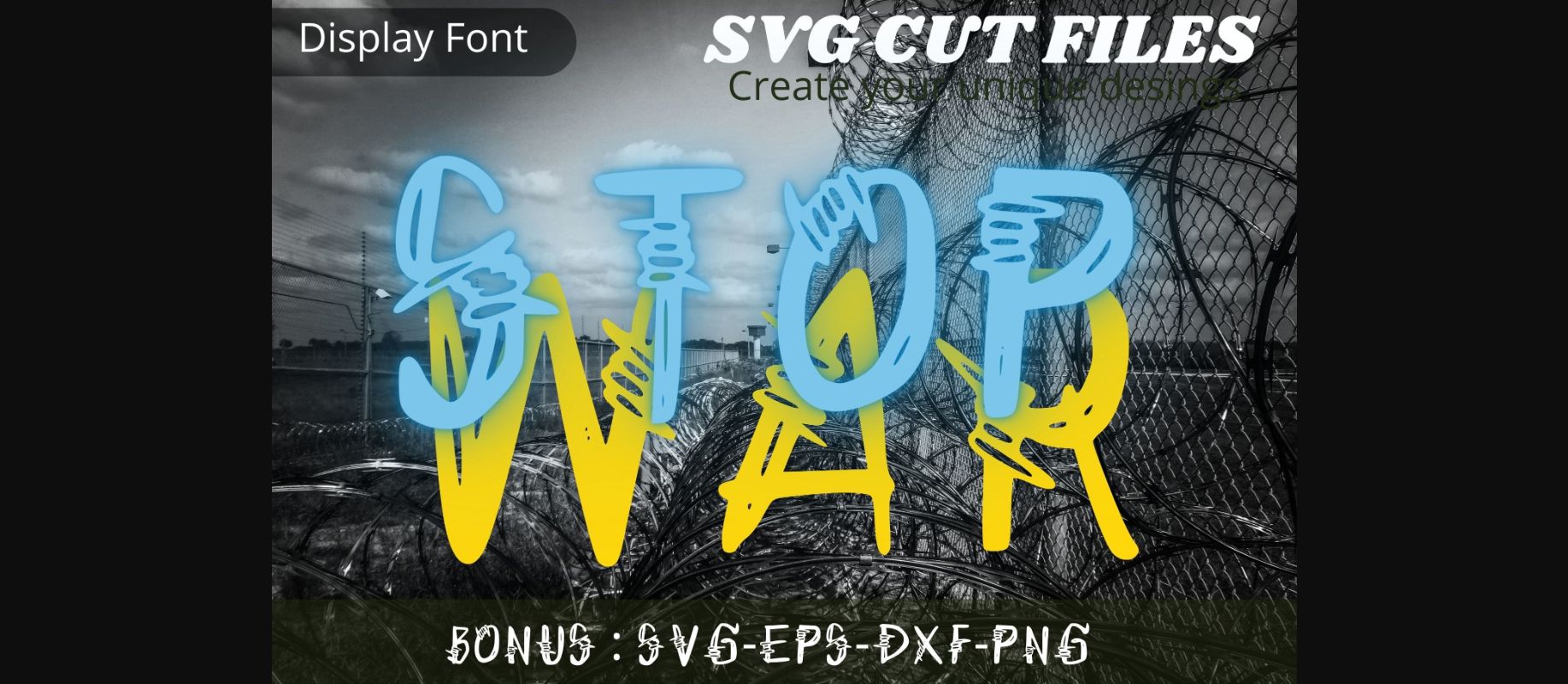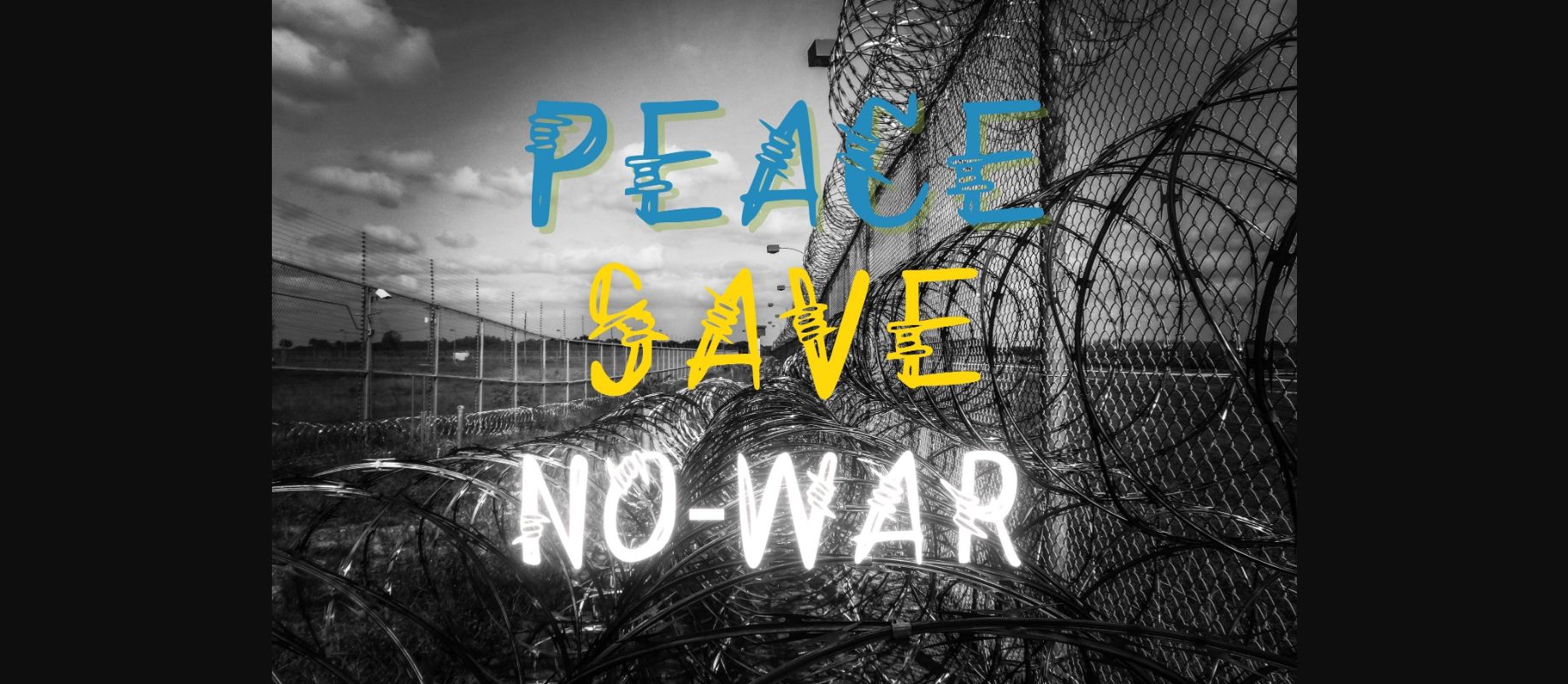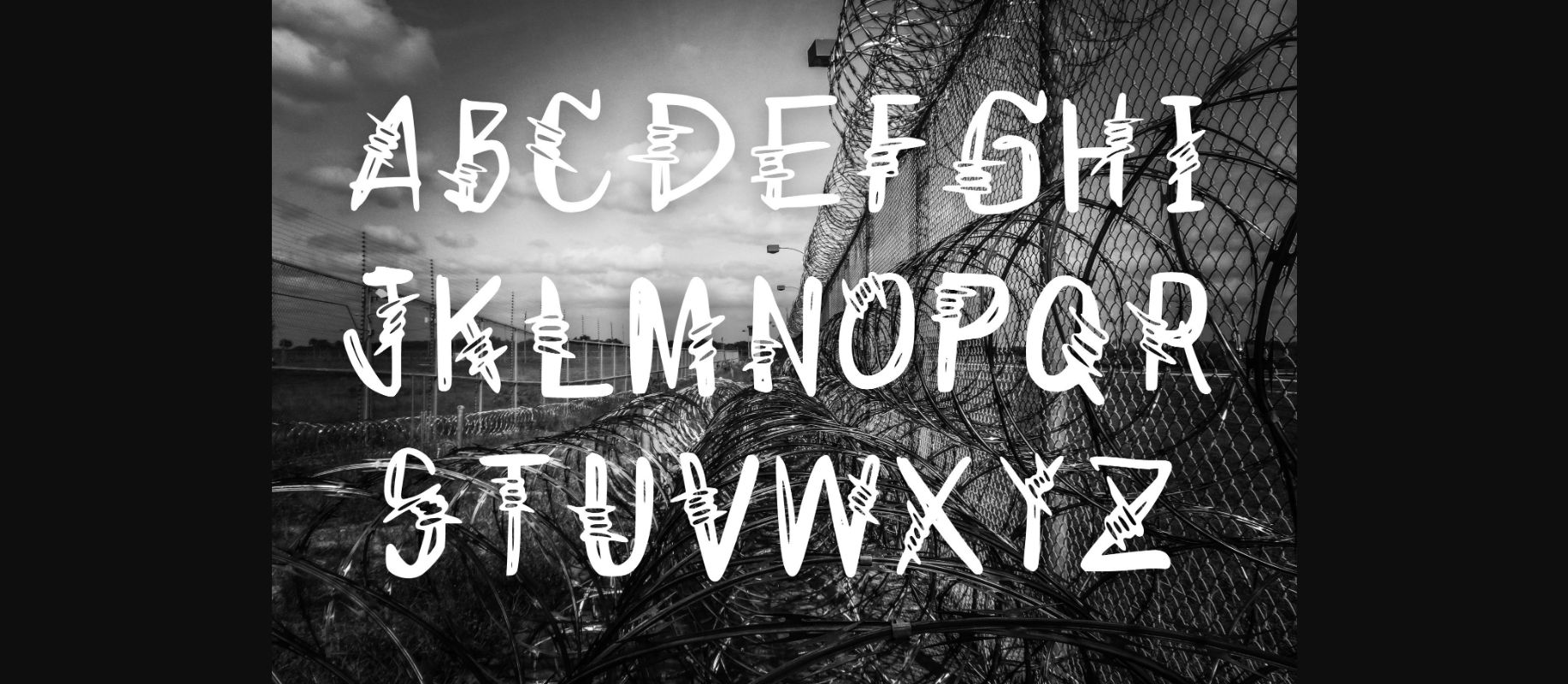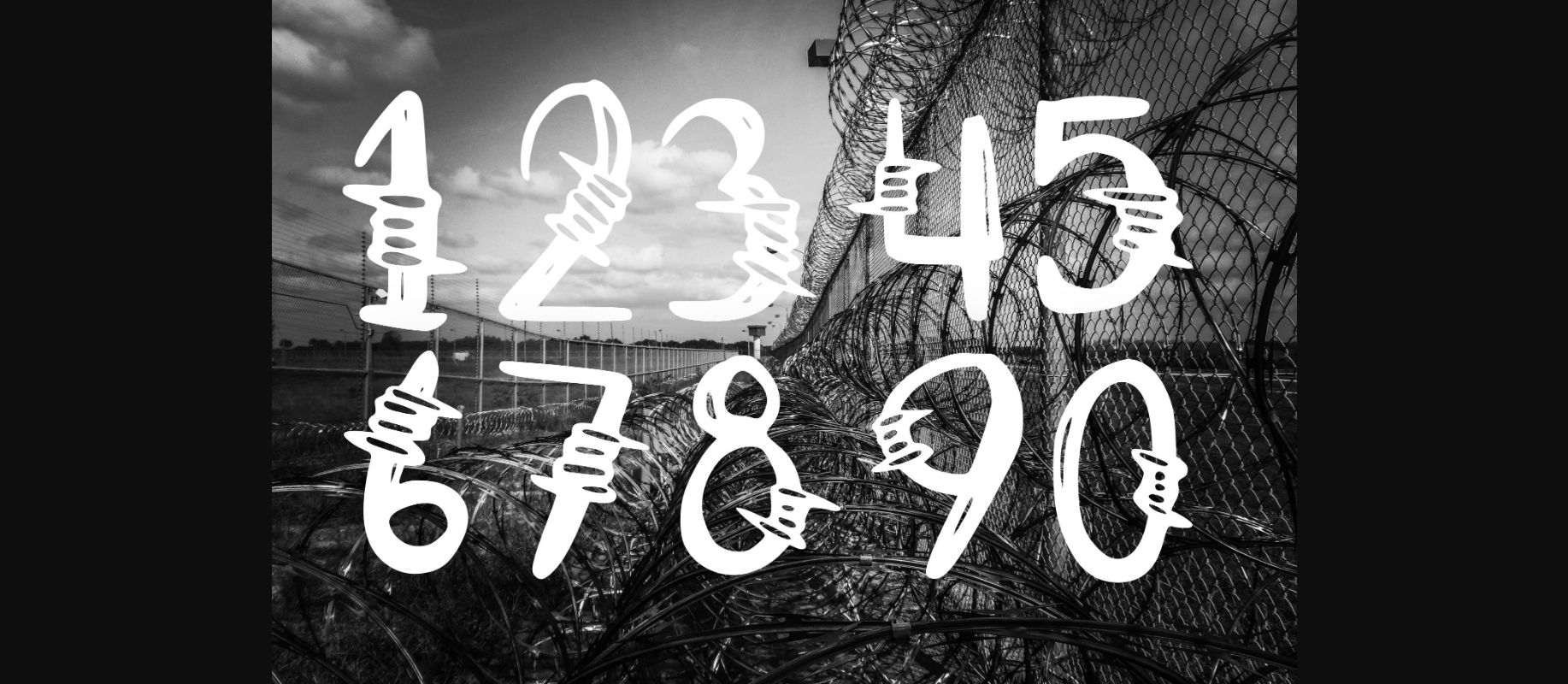
About Stop War Font
Stop War is a bold, scary and unique decorative font. You can use it for various projects, such as blog posts, logos, branding, ads, invitations, greeting cards, planners, photo albums, decorations, and much more. Add it to any of your designs, and enjoy the results!